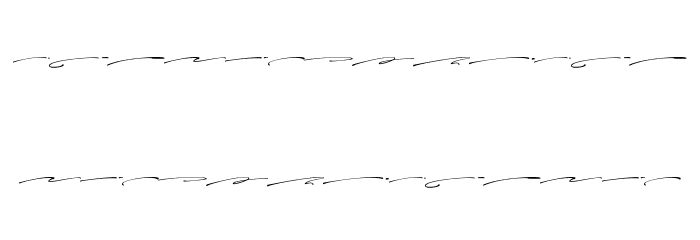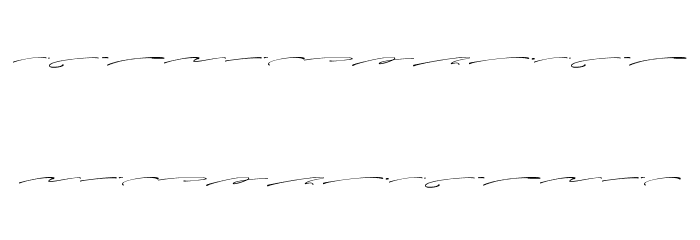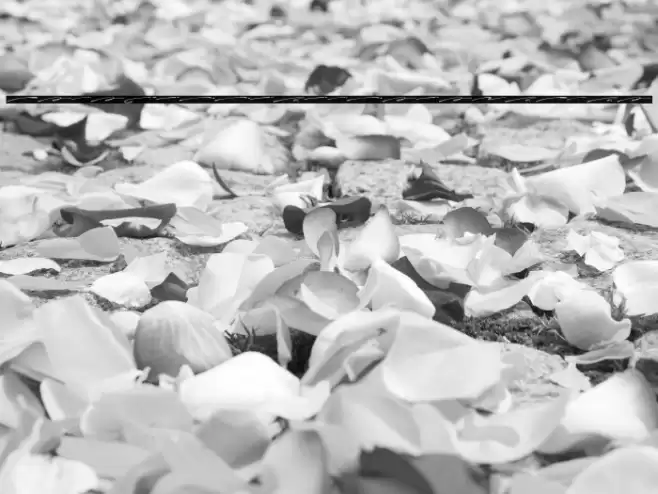
Charlotte Southern Swash Font
This font exudes elegance with its flowing, cursive script style. Each letter is intricately designed with smooth, sweeping strokes that create a sense of movement and grace. The characters are connected, enhancing the fluidity and continuity of the text. The delicate lines and subtle curves give it a refined and sophisticated appearance, making it ideal for projects that require a touch of class and elegance. The font's design is reminiscent of traditional calligraphy, yet it maintains a modern flair that makes it versatile for contemporary use.
An elegant, flowing cursive script with smooth, sweeping strokes.
- Font: Charlotte Southern Swash
- Proposed Projects: Ideal for wedding invitations, elegant branding, personal stationery, and decorative quotes.
- Category: Script
- Weight: Light
- Character Spacing: Tight
- Overall Style: Elegant
- Use Case: Logos, Invitations, Decorative text